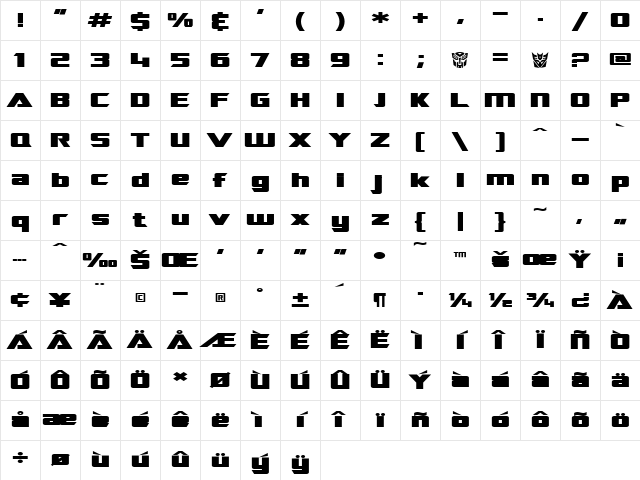
Complete SF TransRobotics Extended Bold glyph index. Displaying only characters natively supported by SF TransRobotics Extended Bold font.
SF TransRobotics Extended is a composed and adaptable typeface that performs quietly and consistently across a wide range of design contexts. Its bold stroke weight gives it real presence on the page.